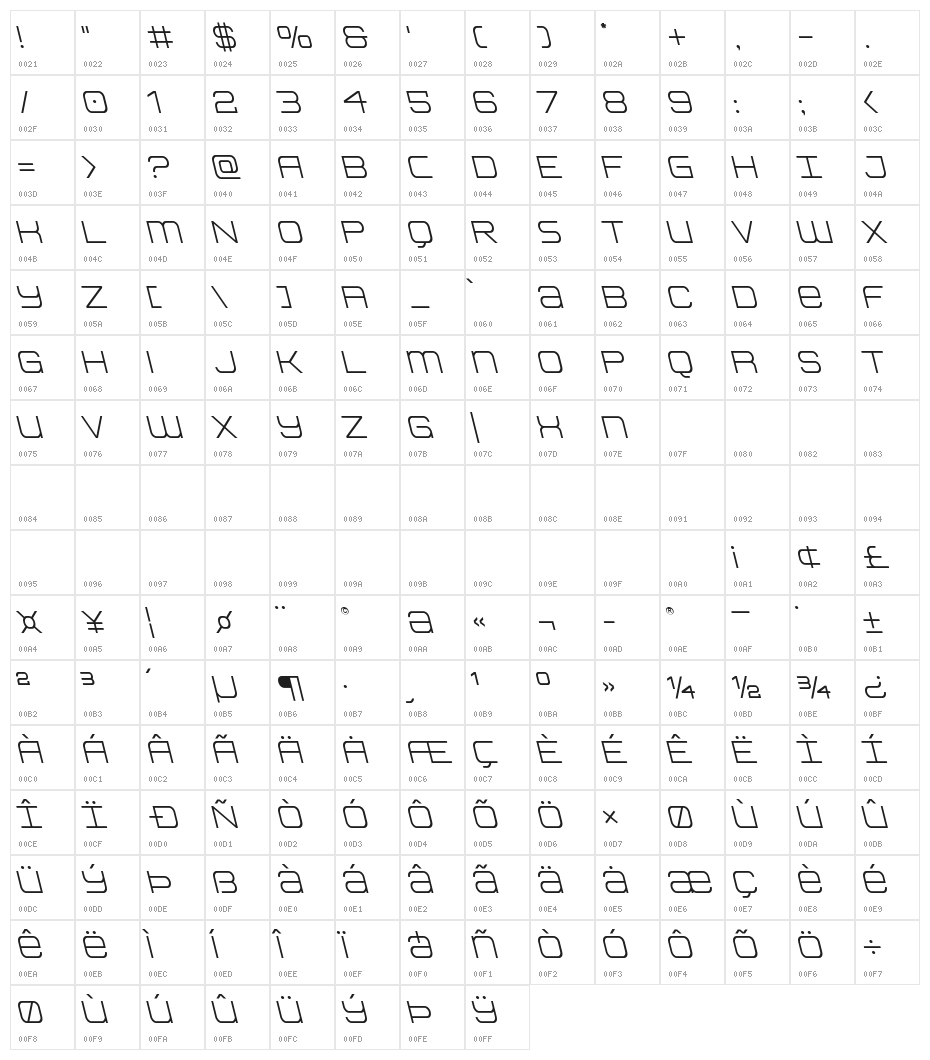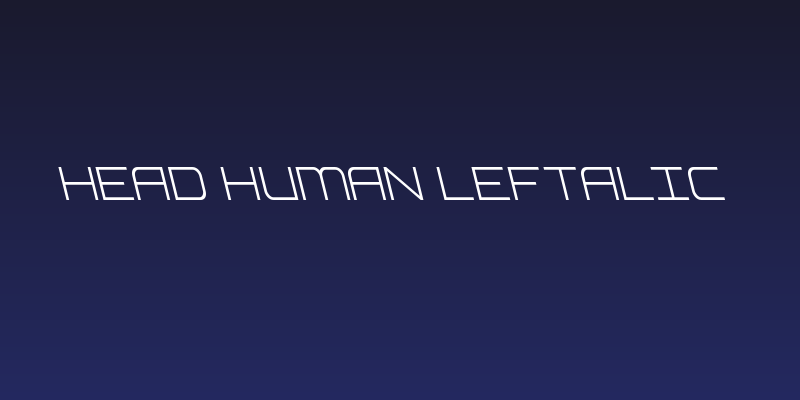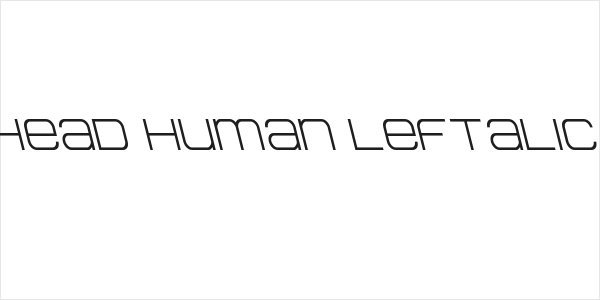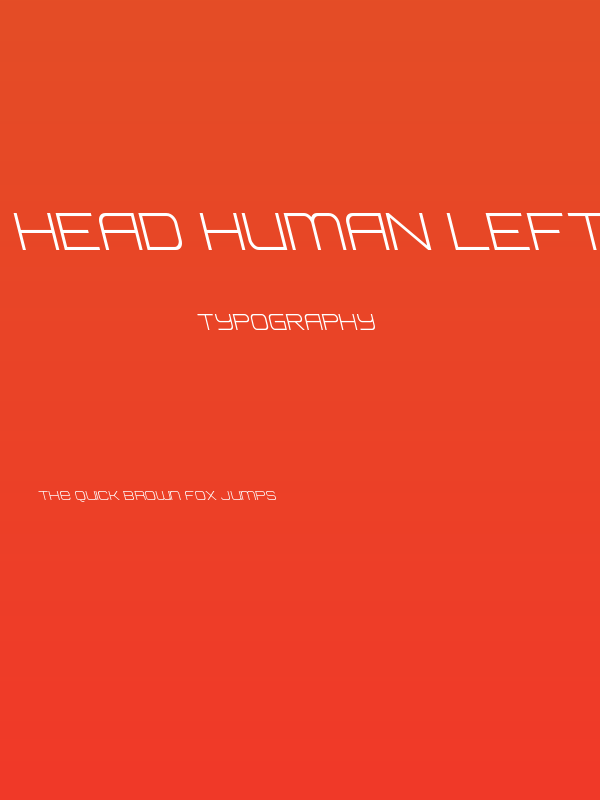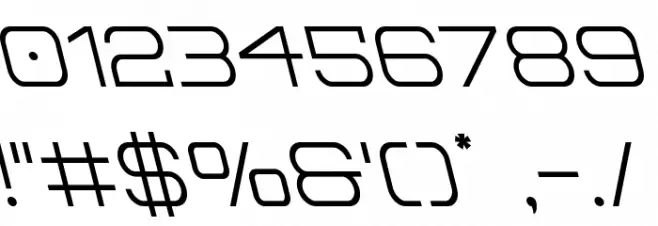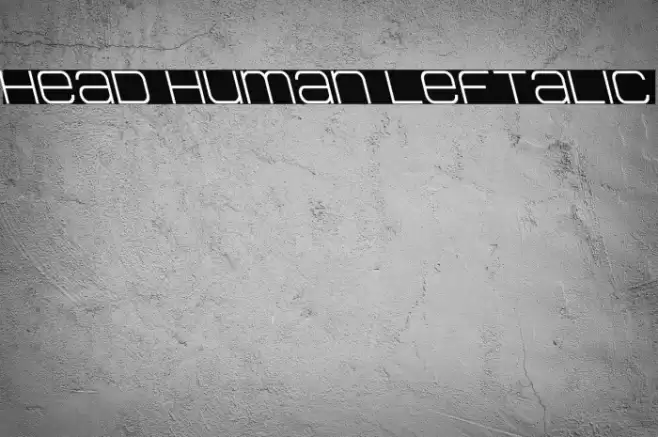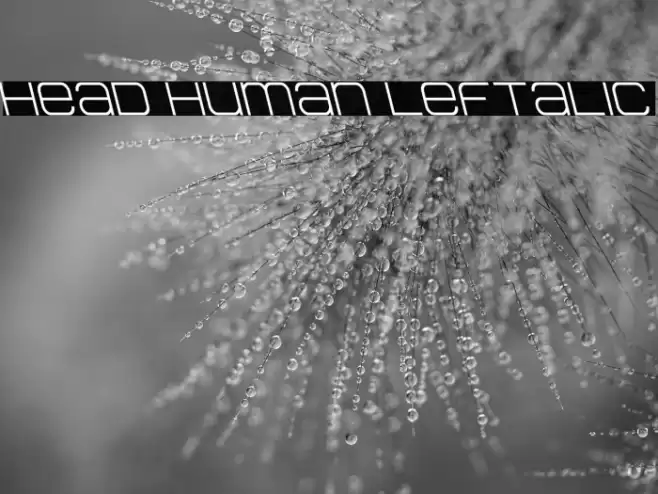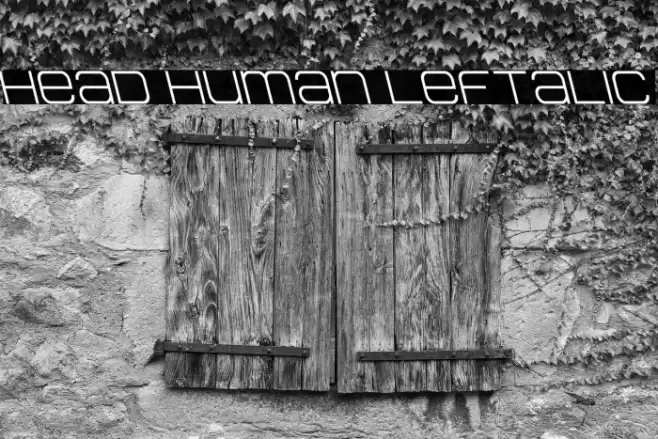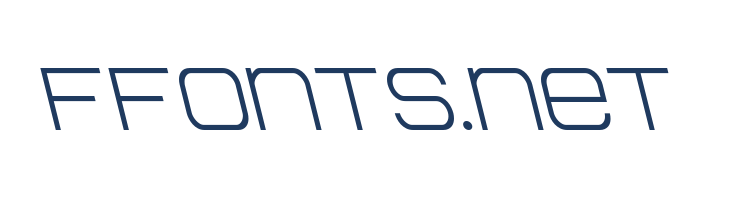
Head Human Leftalic Font
This font features a modern, geometric design with a distinct italic slant, giving it a dynamic and forward-moving appearance. The characters are constructed with clean, straight lines and rounded edges, creating a sleek and futuristic look. The uppercase and lowercase letters maintain a consistent style, with a uniform stroke width that contributes to its minimalistic aesthetic. The numerals and special characters are designed to match the overall style, ensuring cohesion across all elements. This font's unique style makes it suitable for contemporary designs that require a touch of sophistication and modernity.
| Use Case | Headlines, Logos, Digital Interfaces |
| Proposed Projects | Ideal for tech branding, modern advertising, digital interfaces, and innovative product packaging. |